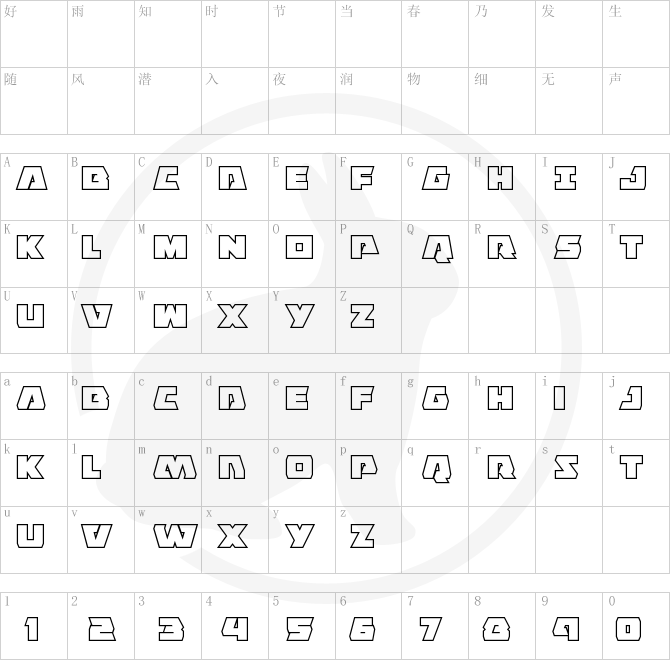
- Font Name:Eagle Strike Bold Outline
- Full Name:Eagle Strike Bold Outline
Eagle-Strike-Bold-Outline.ttf is a very beautiful artistic font, Eagle-Strike-Bold-Outline.ttf is widely used in the design and printing of various books and pictures,Eagle-Strike-Bold-Outline.ttf has a strong visual impact,Eagle-Strike-Bold-Outline.ttf is a commonly used font in newspapers, magazines and books, and is used in posters, e-commerce Poster design, store design, logo design, font design and other fields.Eagle-Strike-Bold-Outline.